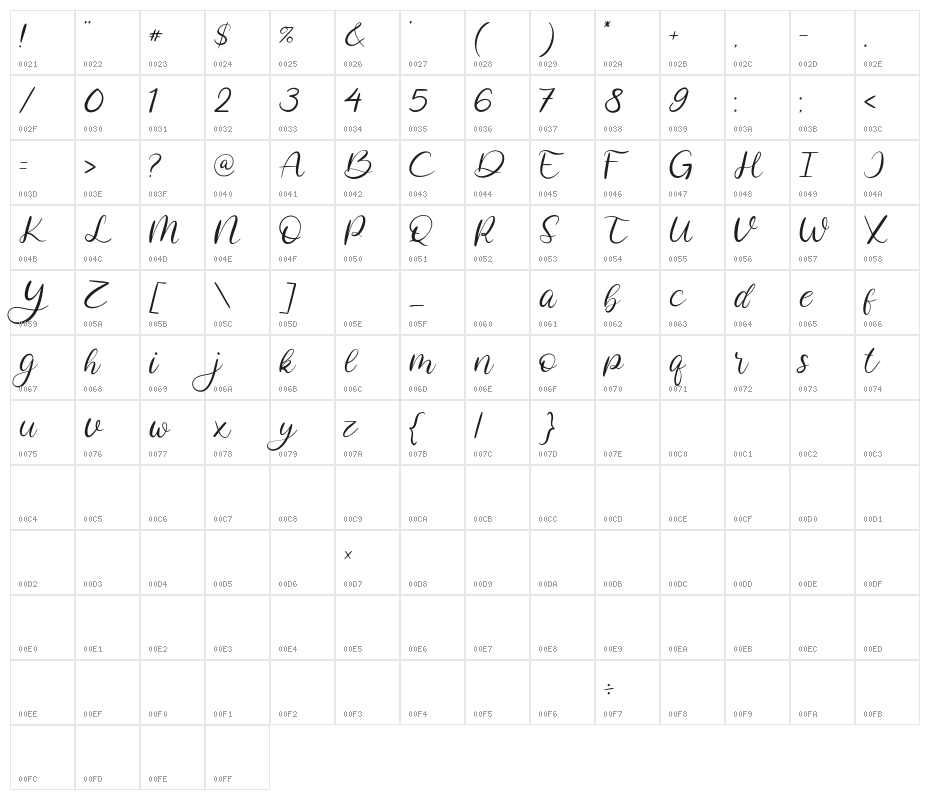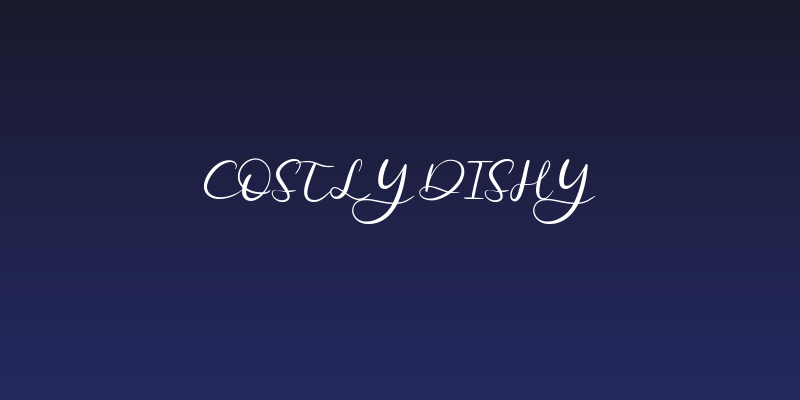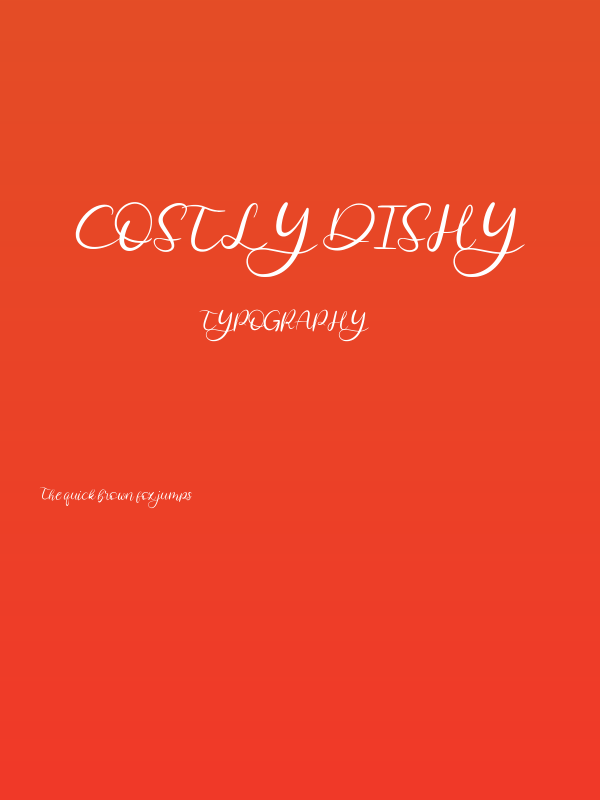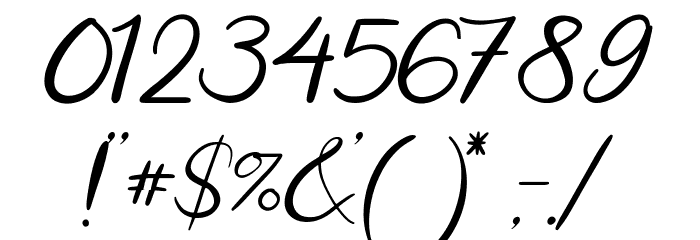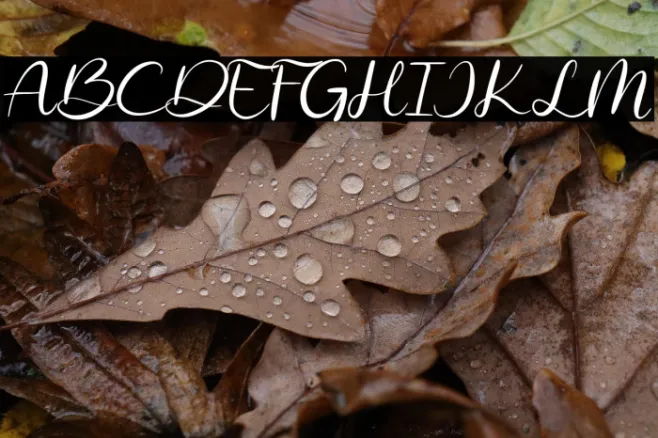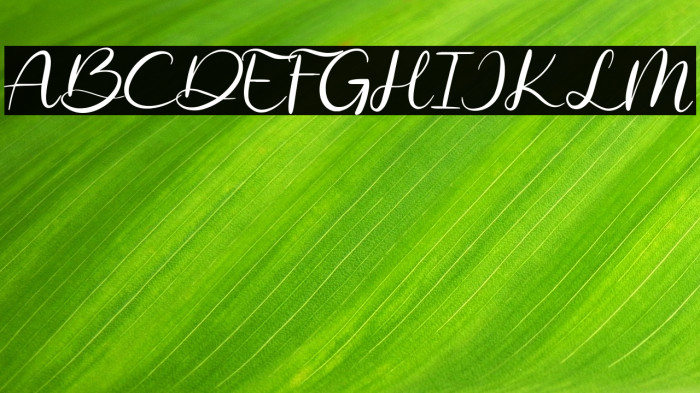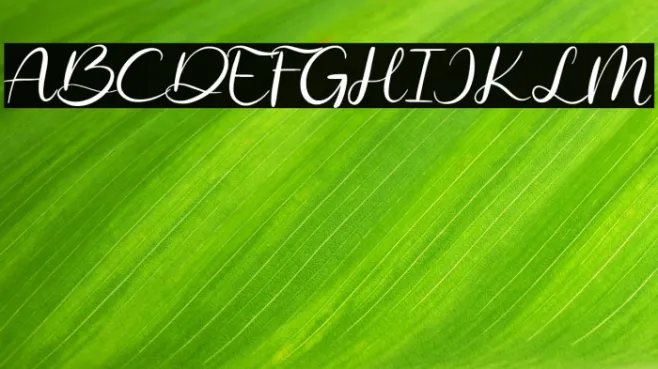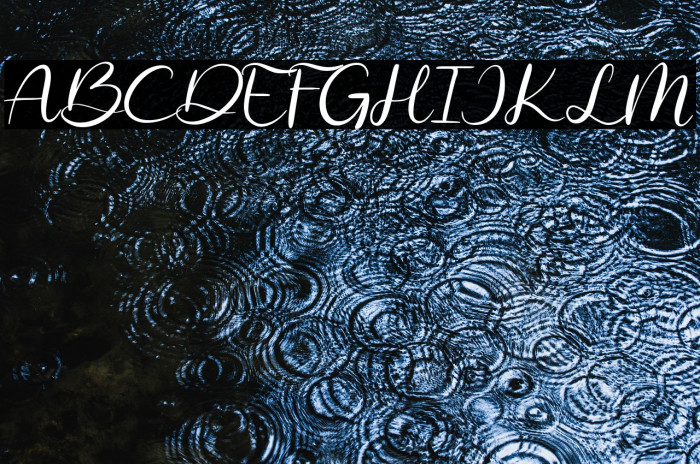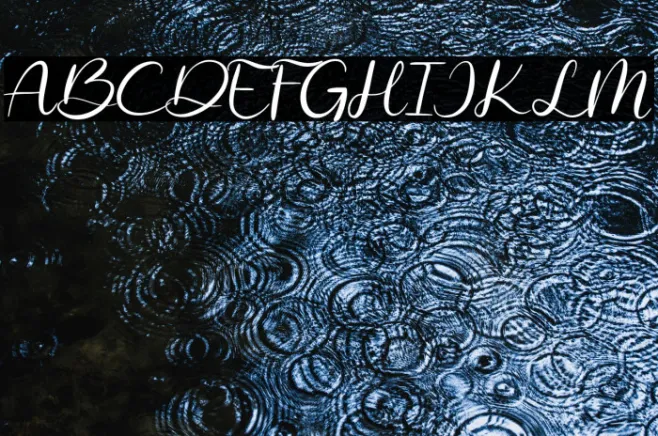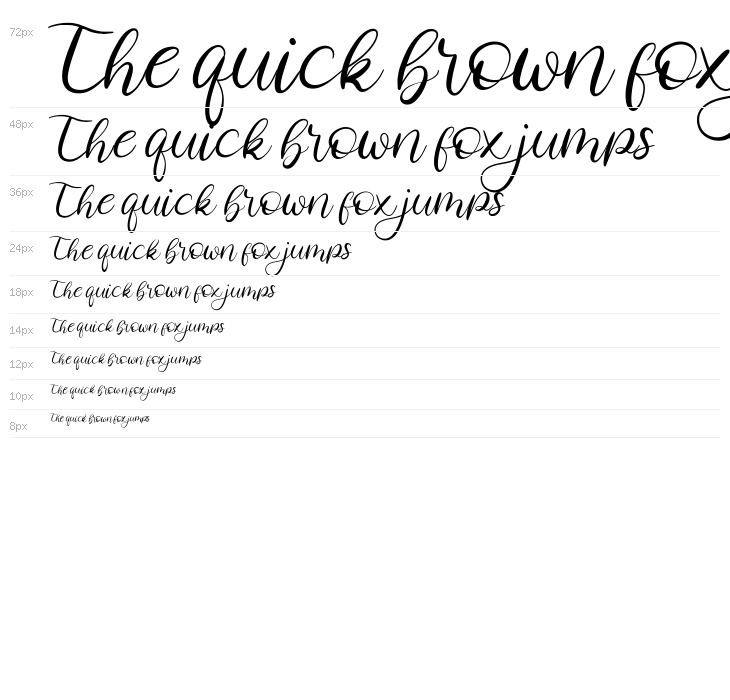
Costly Dishy Font
Costly Dishy Description
This elegant script font features a flowing, cursive design with smooth, interconnected strokes that give it a sophisticated and artistic appearance. The uppercase letters are tall and graceful, with sweeping curves and loops that add a touch of flair. The lowercase letters maintain a consistent flow, enhancing readability while preserving the decorative style. Numbers and special characters are designed to match the overall aesthetic, with a harmonious blend of curves and lines. This font exudes a sense of elegance and creativity, making it suitable for projects that require a personal and artistic touch.
| Overall Style | Elegant, Artistic |
| Proposed Projects | Ideal for wedding invitations, greeting cards, branding, and artistic projects. |